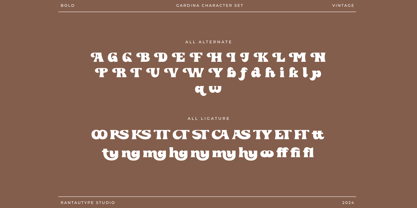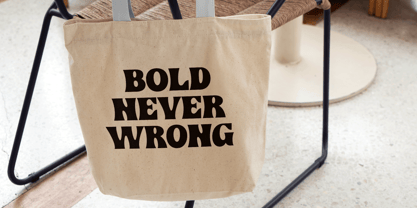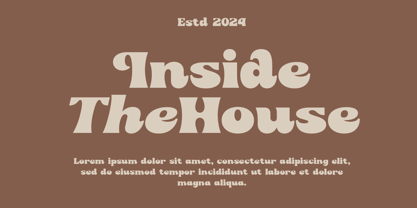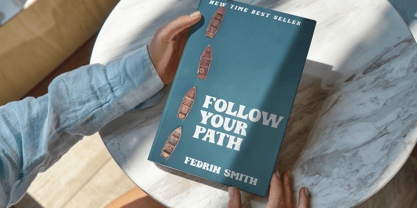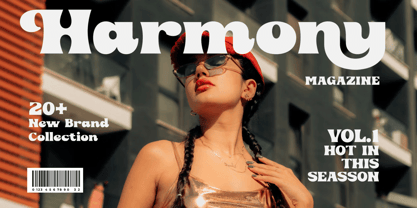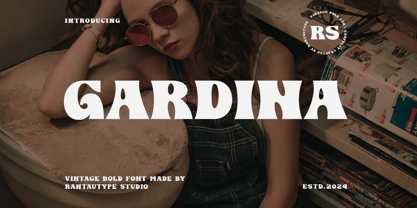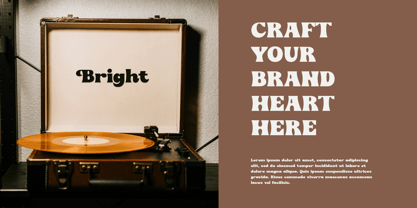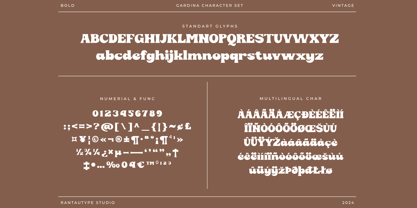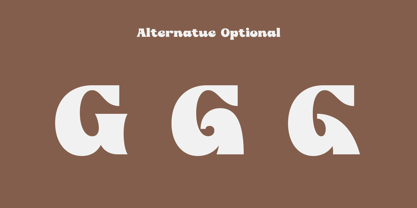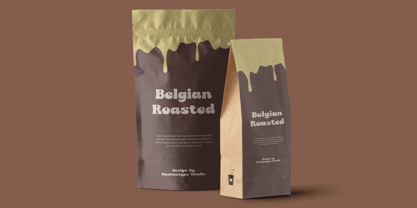
Gardina
par RantauType
La famille de polices Gardina a été conçue par Yudi Pratama Chandra et publiée par RantauType. Gardina contient 2 styles et options de package familial. En savoir plus sur cette famille
Gardina is bold vintage font made by rantautype studio. Gardina is a perfectly choice for any creative endeavor, chic, lifestyle design such as logotype, advertisements, watermark on photography, stationery, branding project, display and magazine, invitation, corporate brand, product design, label, business project and many other project with modern touch.
• Standart Glyphs
• Numberial and Functional
• Ligature and alternate